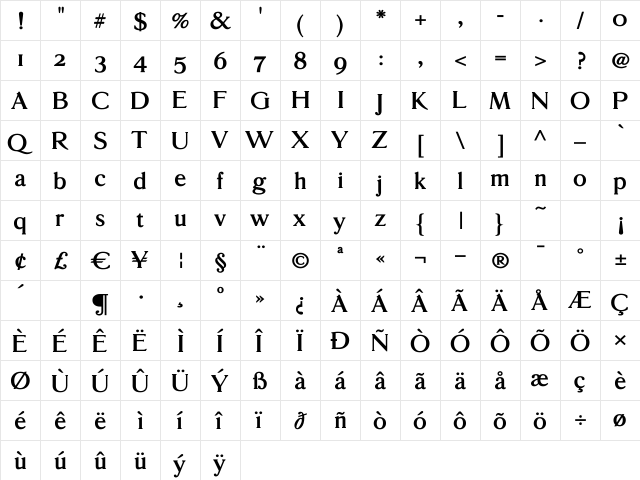
GlossoBold Regular
Design Context for GlossoBold Typeface
GlossoBold takes a measured approach to typography — its balanced proportions and neutral character make it a reliable workhorse for both digital and print work. The heavy weight commands attention and anchors typographic hierarchies.